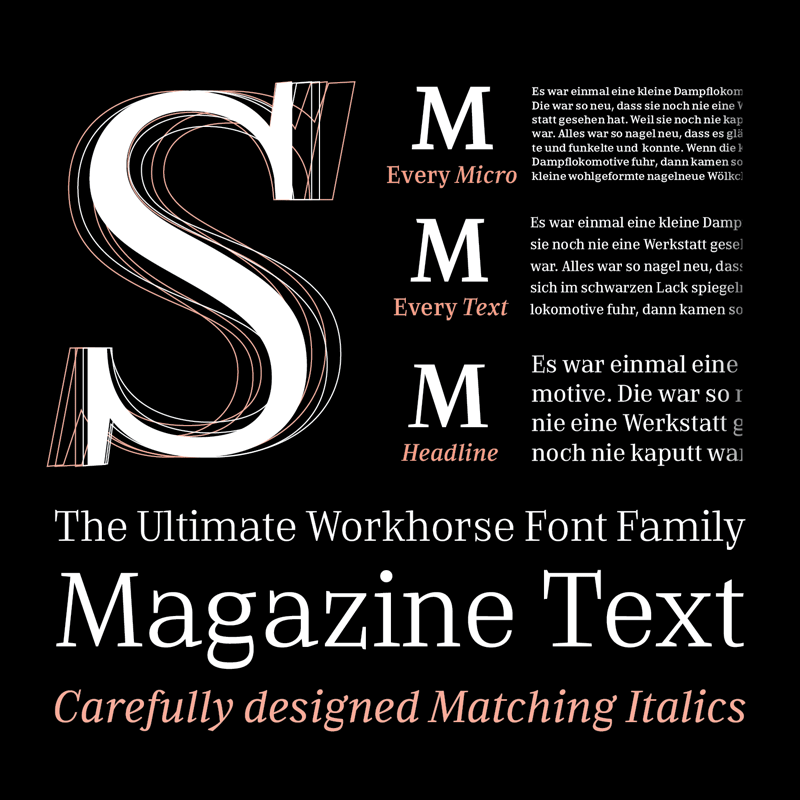
'Every Headline' is a new strong and elegant serif font, that will bring an outstanding character to your project. This font free for PERSONAL USE. If you need more detailed information you can contact me at: hello@typethis.studio -------- FOR PERSONAL AND COMMERCIAL USE, please download here: https://www.typethis.studio/p/every-font-family/ |